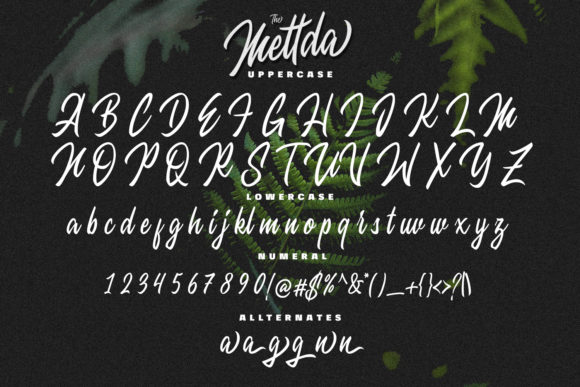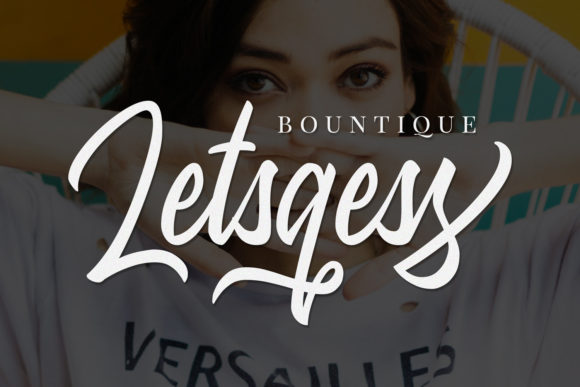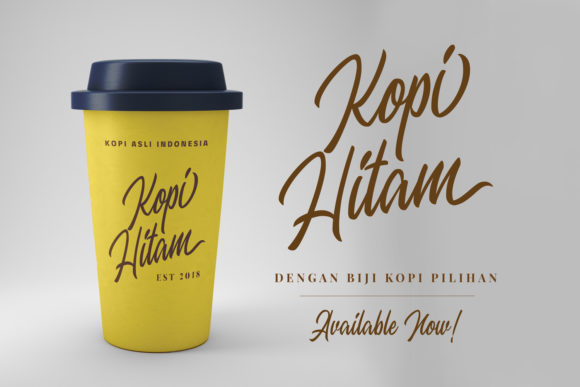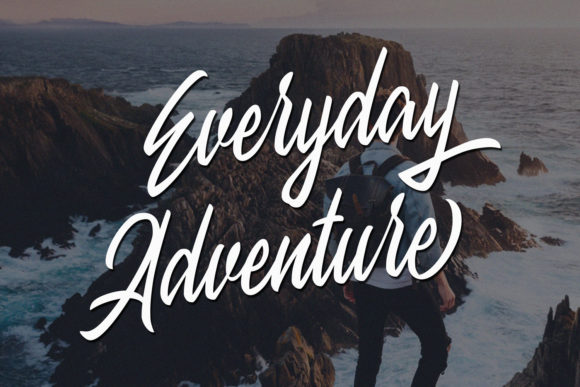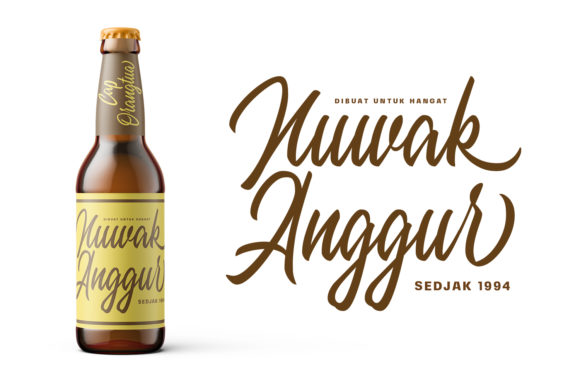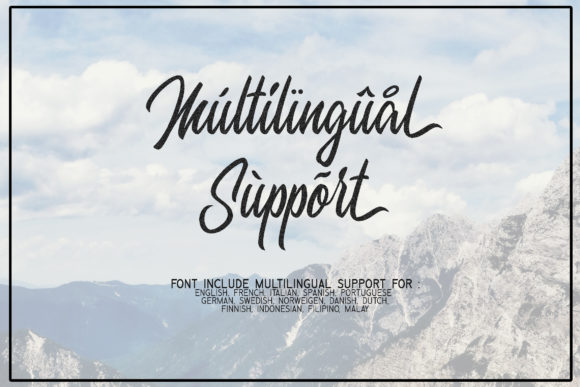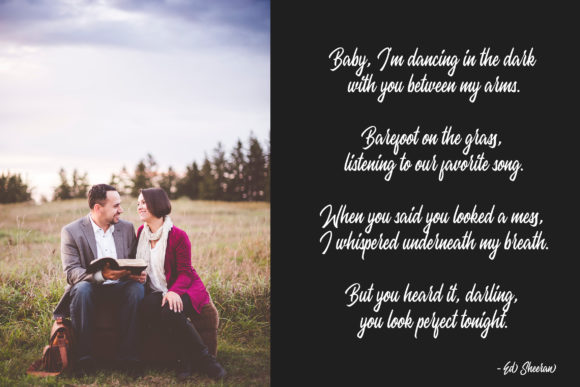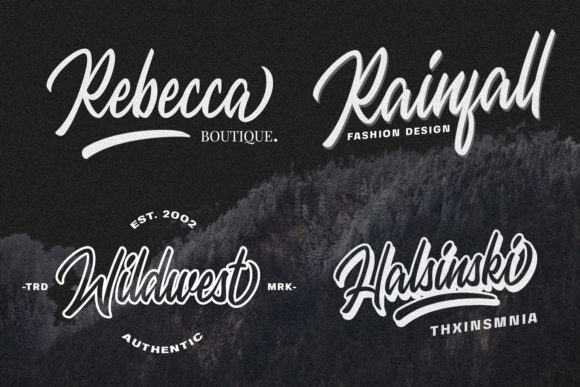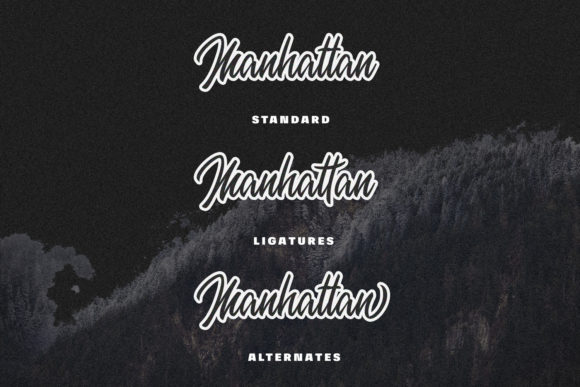
Mettda Scipt Font
About Mettda Scipt Font
Mettda is a stunningly authentic and bold handwritten font with a lot of charm. Use it to add a contemporary twist to any design project!